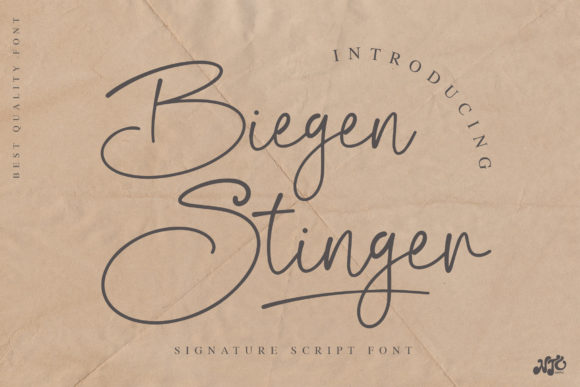
Feast your eyes on Biegen Stinger Script Font, an extraordinary creation by the talented dwikrisdiantoro9, a font that will bewitch you with its beauty. This script font exudes elegance and charm, lending an air of sophistication to any project you grace it with.
Indulge in the font's allure as it dances across your screen, its graceful curves and delicate strokes captivating your senses. Biegen Stinger Script is a versatile font that seamlessly transitions from print to screen, making it the perfect choice for a wide range of projects.
Whether you're crafting captivating logos, designing stunning branding, creating heartfelt invitations, or adding a touch of charm to your stationery, Biegen Stinger Script is the font that will make your designs shine. Transport your audience to a world of timeless beauty, where your words come alive with grace and elegance.
Let Biegen Stinger Script be your creative partner, helping you create designs that captivate and enchant. From wedding invitations that exude romance to social media posts that spark engagement, this font will elevate your designs to new heights of artistry.
Embrace the beauty of Biegen Stinger Script today and unlock a world of creative possibilities. Adorn your designs with a font that whispers elegance, and watch as your projects blossom into masterpieces that leave a lasting impression. Fall under the spell of Biegen Stinger Script and elevate your designs to extraordinary heights.